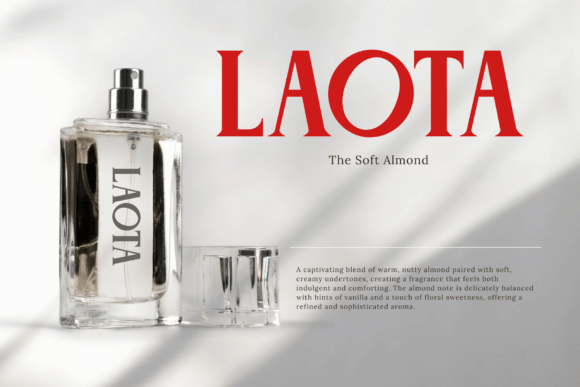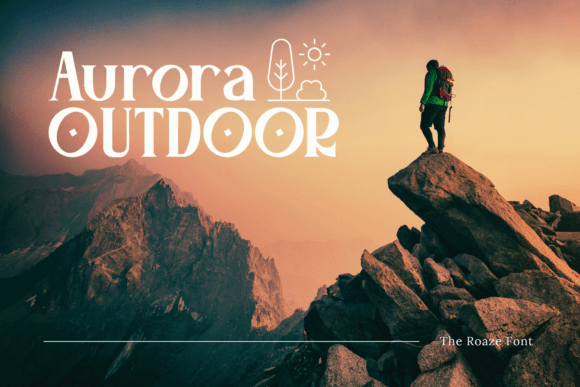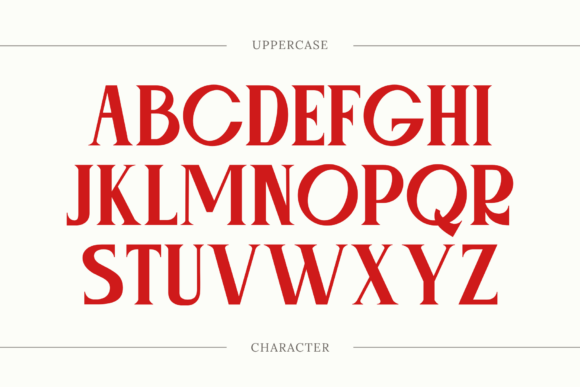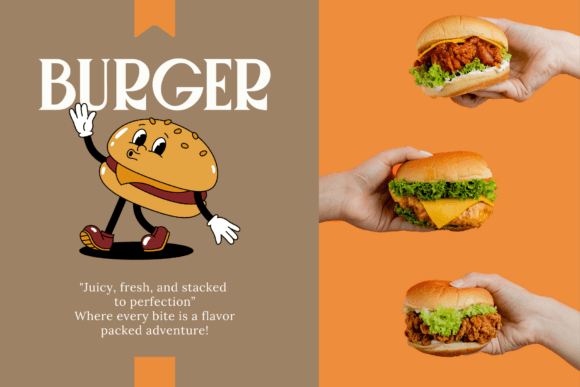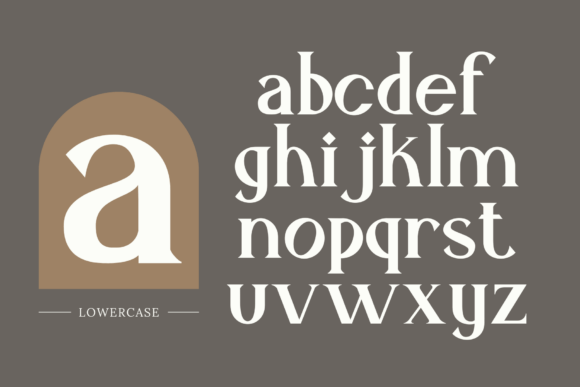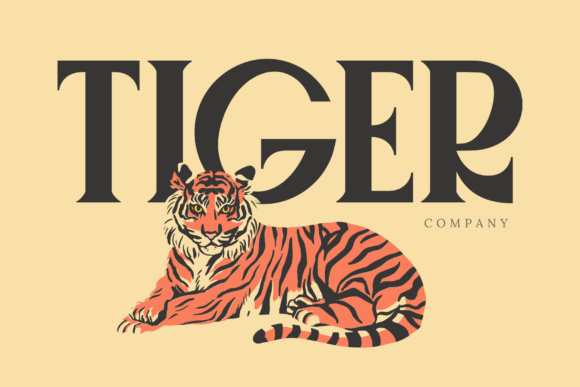
Introduction to Roaze Font
Roaze is a timeless vintage font designed to bring elegance and charm to your creative projects.
Its sophisticated curves and distinctive style make it ideal for branding, logos, fashion campaigns, and film titles The fontโs versatile appeal effortlessly blends classic aesthetics with modern design, ensuring a bold and memorable statement.
Roaze Font offers exceptional quality and versatility, making it a valuable addition to your design toolkit. Whether you’re creating for personal projects or commercial use, Roaze Font delivers professional results.